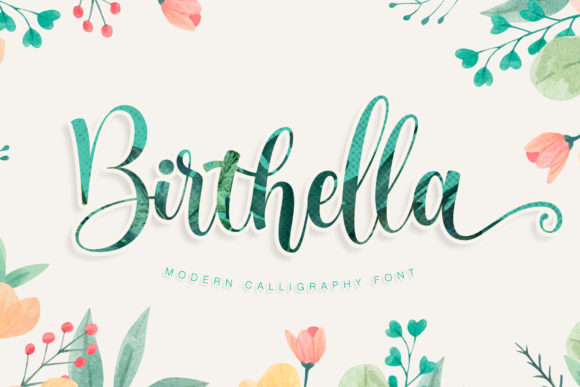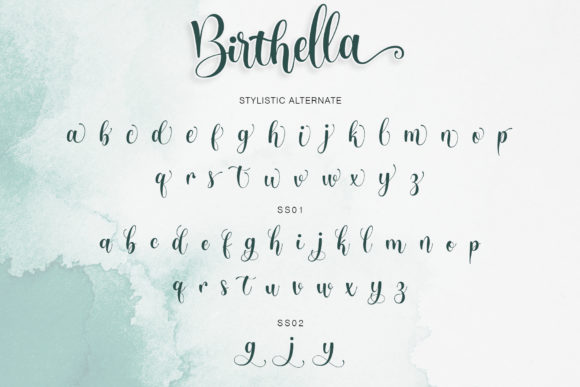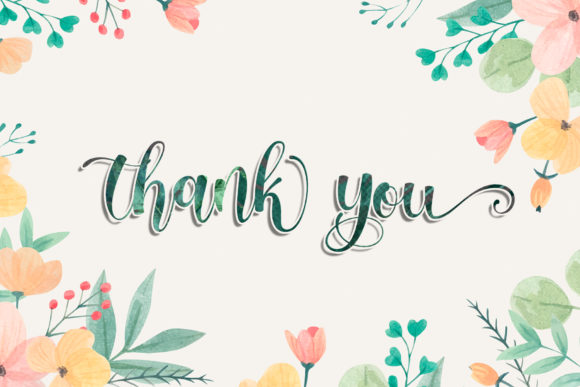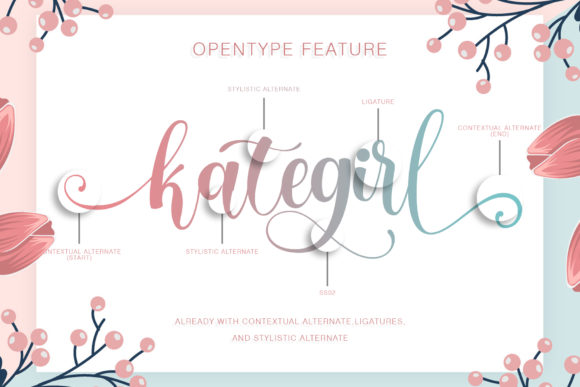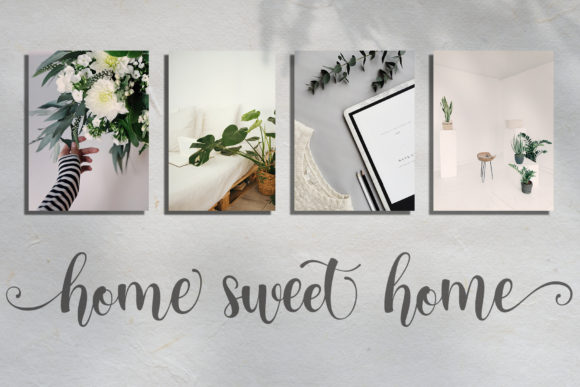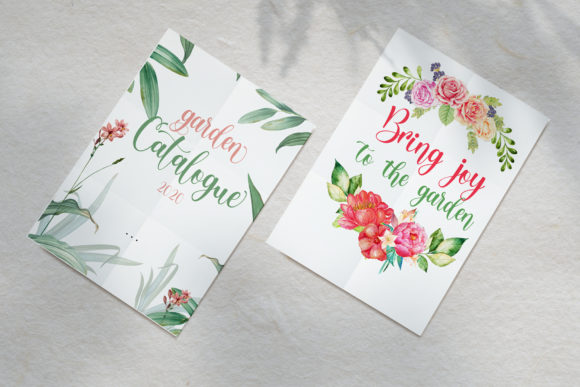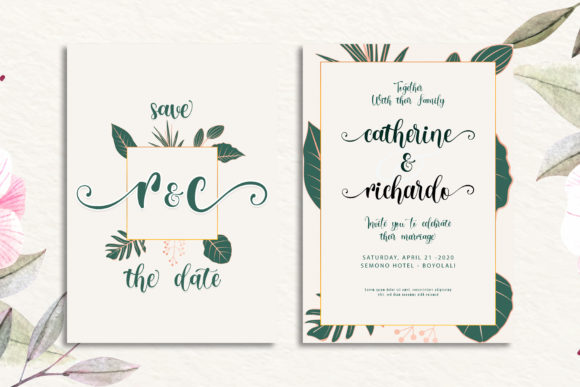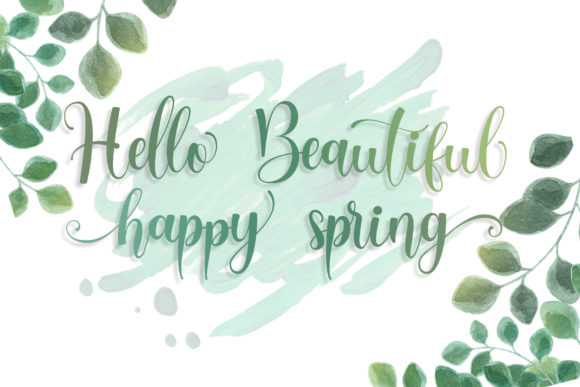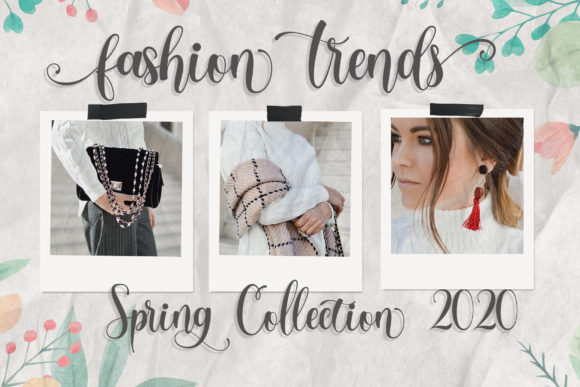
Birthella Font
About Birthella Font
Birthella is a modern and cute handwritten font. Fall in love with its authentic feel and use it to create gorgeous wedding invitations, beautiful stationary art, eye-catching social media posts, and cute greeting cards. This font is PUA encoded which means you can access all of the Birthella glyphs and swashes with ease! It also features a wealth of special features including alternate glyphs and ligatures.